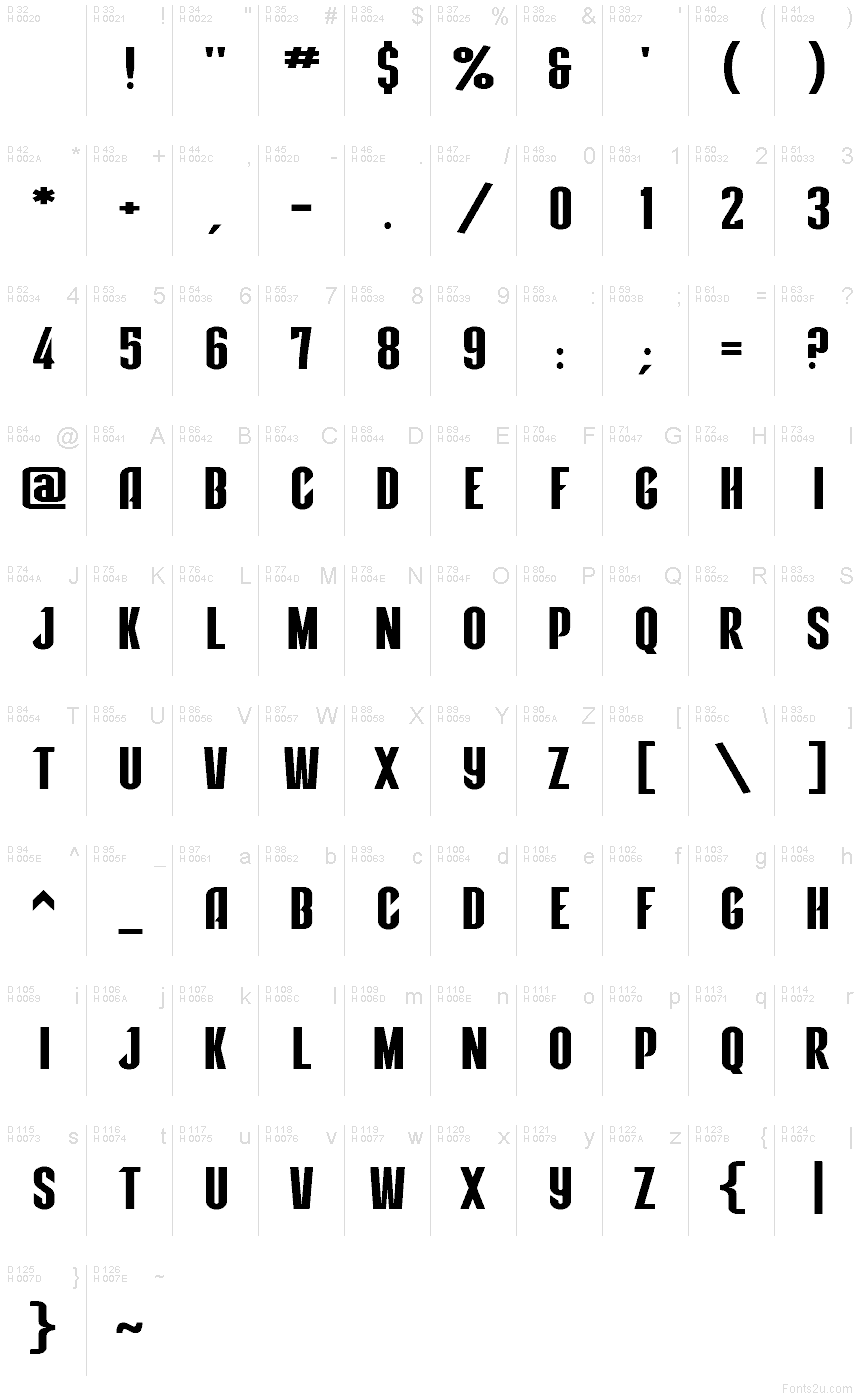
Talks font by Graphicxell is a free bold condensed sans serif font. Built like a vertical slab of ink, it stands out with razor-cut notches and chiseled shoulders that slice into the strokes, giving each word a taut, high-impact silhouette. The compressed width locks letters into a steady, drumbeat rhythm, while the heavy weight delivers confident, poster-ready authority without feeling blocky or dull.
Using Talks, headlines snap to attention on event posters, tech conference branding, podcast covers, sports promos, packaging, and bold social thumbnails. This free font thrives in big sizes where its angular cuts read crisp and intentional; add a touch of tracking for extra breath. For body copy, pair it with a light, neutral grotesk to balance the density and keep layouts clean.